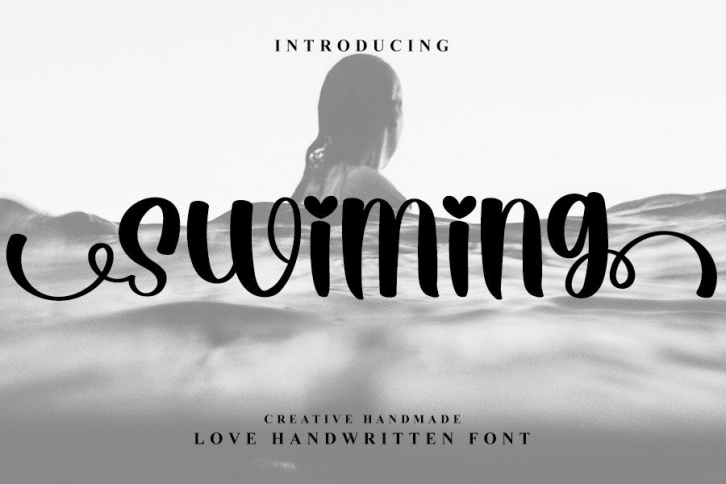
Swiming is a beautiful and refined script font. It has a classy, elegant, and modern look that can be used for logos, branding, invitations, stationery, wedding designs, social media posts, and much more!